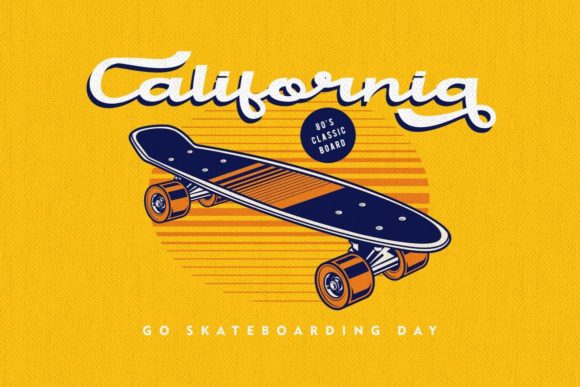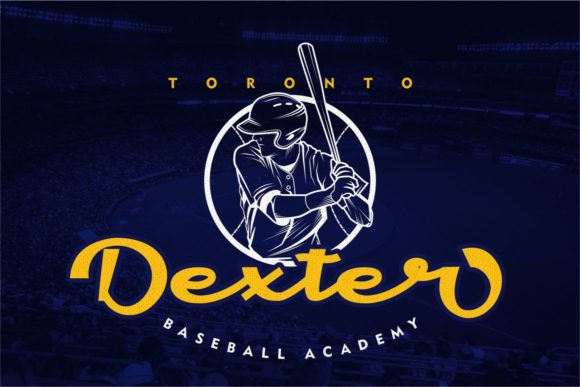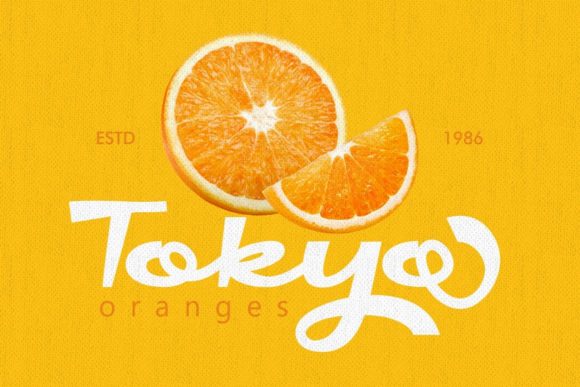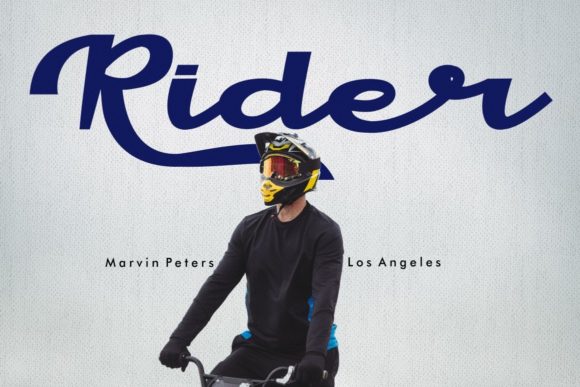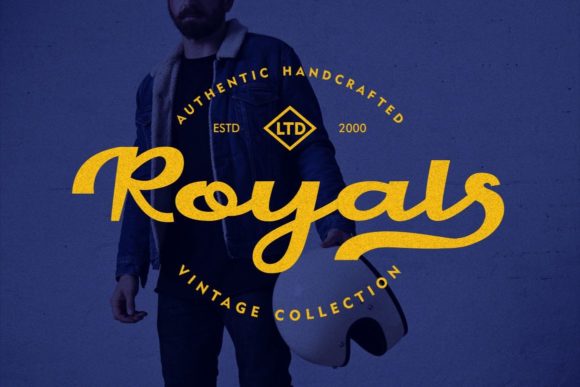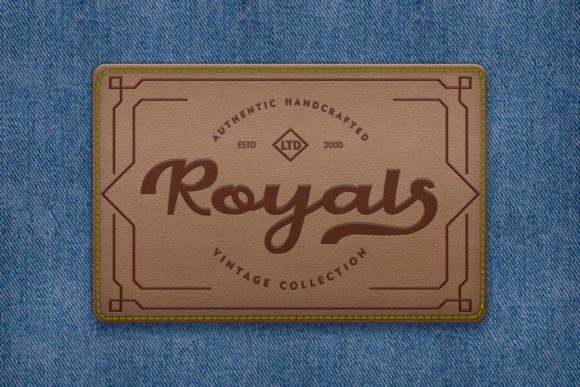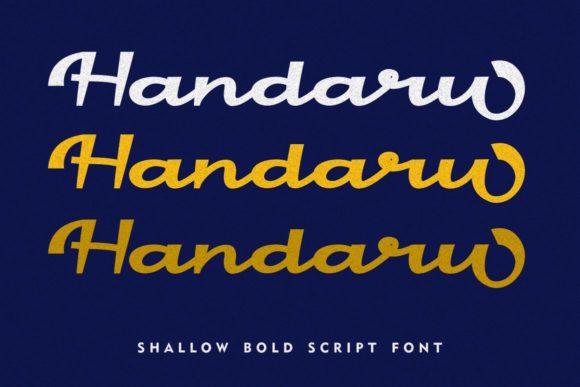
Introducing Handaru Font: The Ultimate Choice for Bold and Versatile Designs
Are you tired of using the same old fonts for your designs? Look no further! Handaru Font is here to revolutionize your creative projects with its cool and bold handwritten style. This stunning font is not only visually appealing but also incredibly versatile, making it perfect for designers and crafters alike.
What Makes Handaru Font So Special?
Handaru Font is a PUA (Private Use Area) encoded font, which means that you can access all of its glyphs and swashes with ease. This feature allows you to unleash your creativity and experiment with different design elements, making your projects truly unique and eye-catching. The font’s versatility is unmatched, making it suitable for a wide range of applications, from branding and advertising to packaging and digital media.
Key Features of Handaru Font
- Cool and Bold Handwritten Style: Handaru Font boasts a stylish and modern handwritten look that is sure to grab attention.
- PUA Encoded: With PUA encoding, you can access all glyphs and swashes, giving you complete creative control.
- Incredibly Versatile: Use Handaru Font for a variety of projects, from logos and brochures to social media graphics and website headers.
Tips for Using Handaru Font
To get the most out of Handaru Font, here are some expert tips:
- Experiment with Swashes: Use the font’s swashes to add flair to your designs and make them more dynamic.
- Mix and Match: Combine Handaru Font with other fonts to create unique and interesting typography.
- Play with Colors: Take advantage of the font’s bold style and experiment with different colors to make your designs pop.